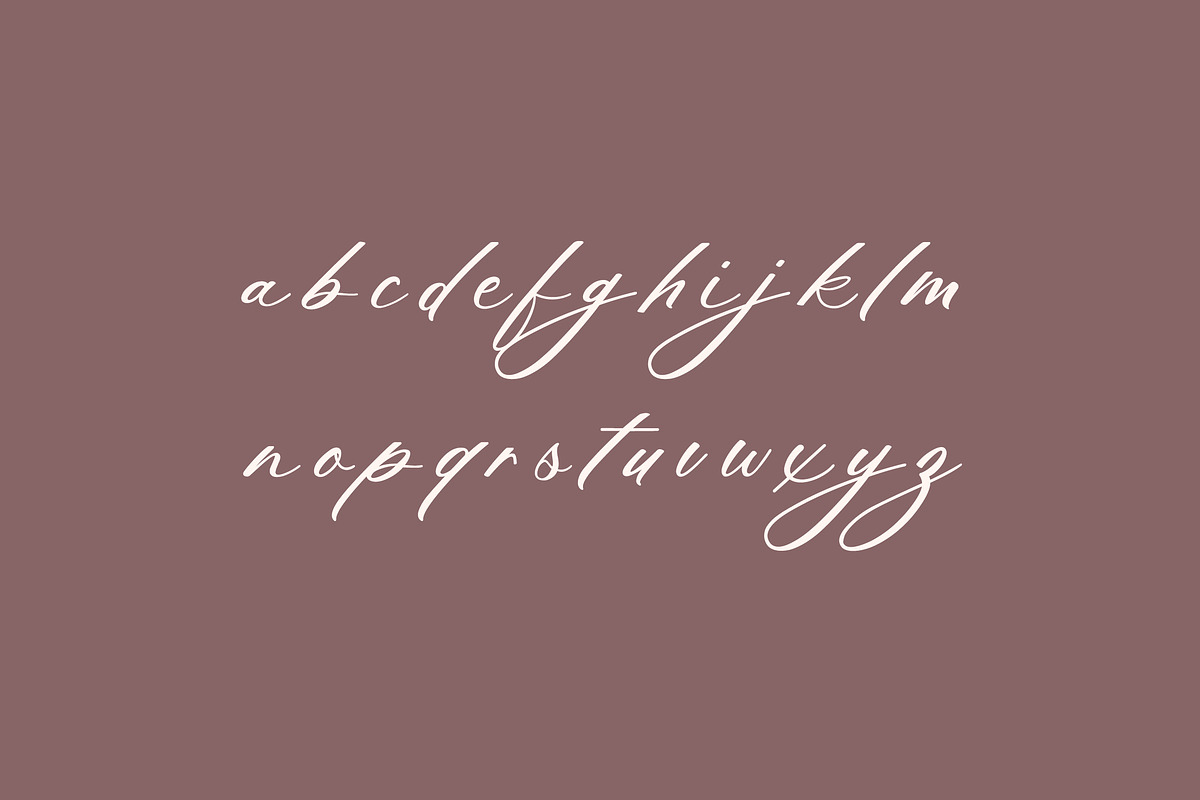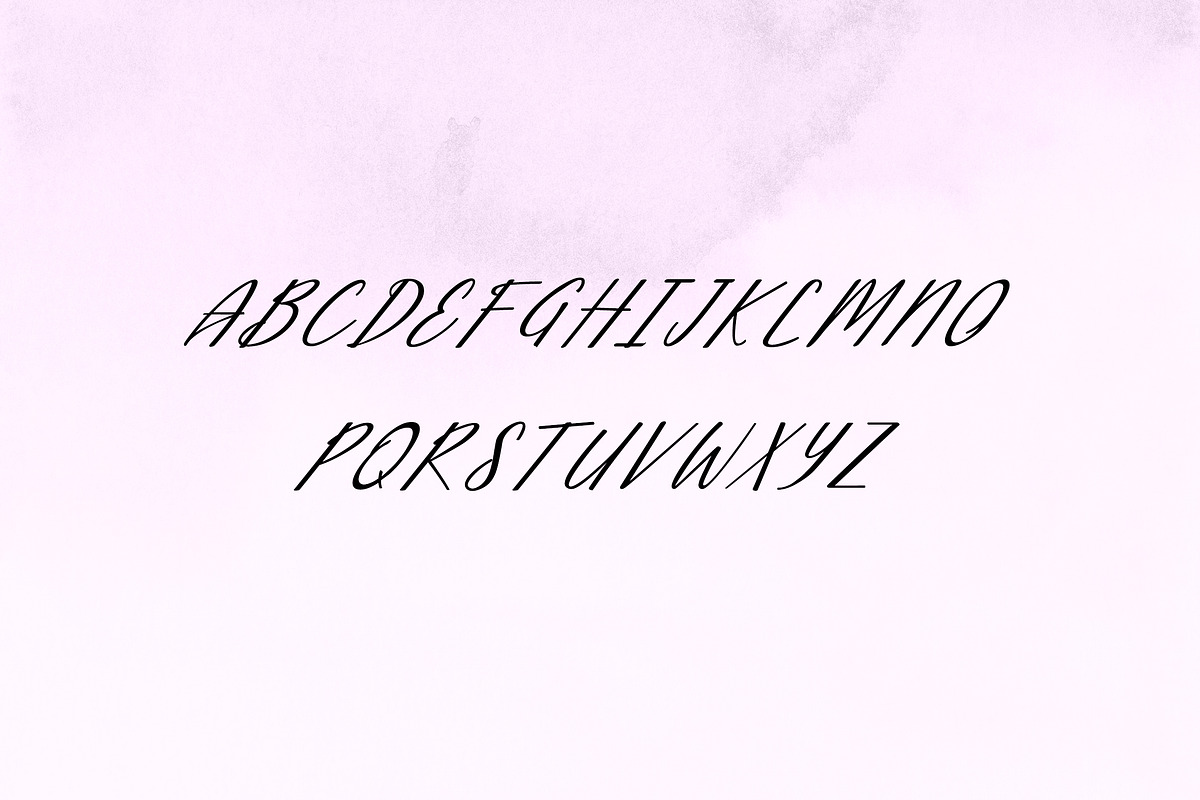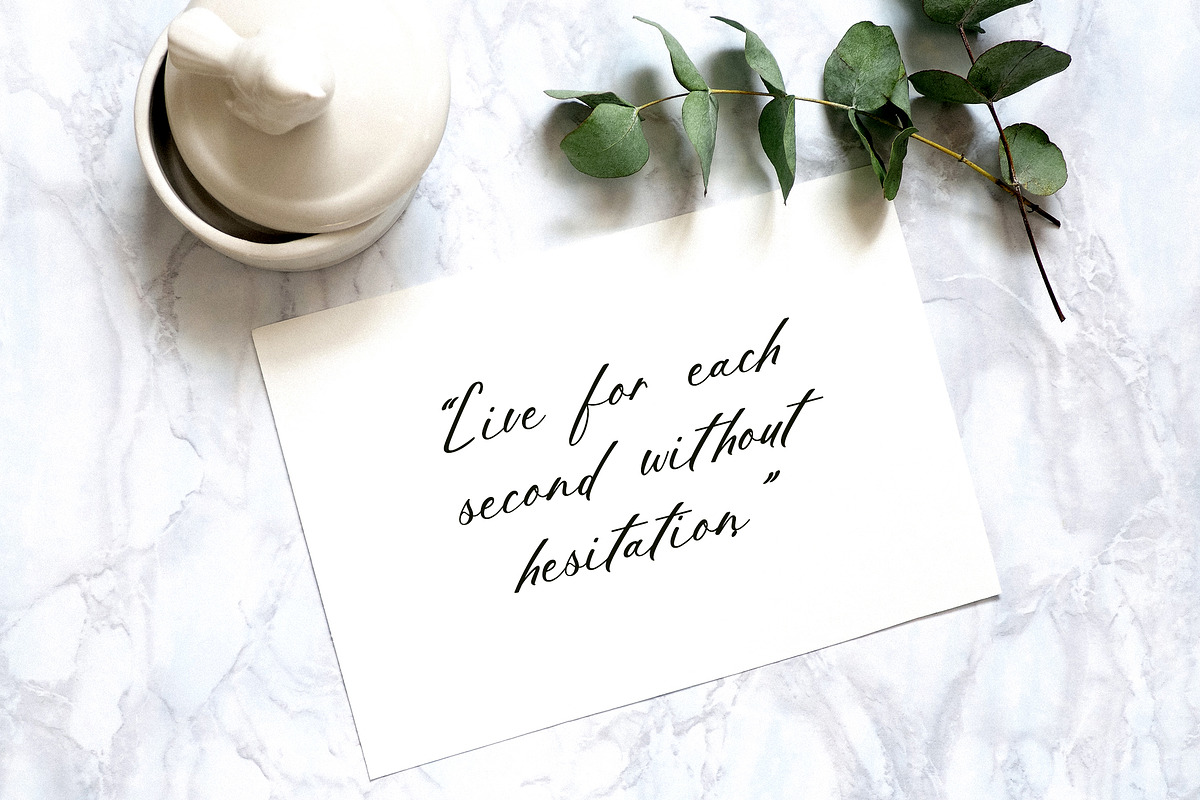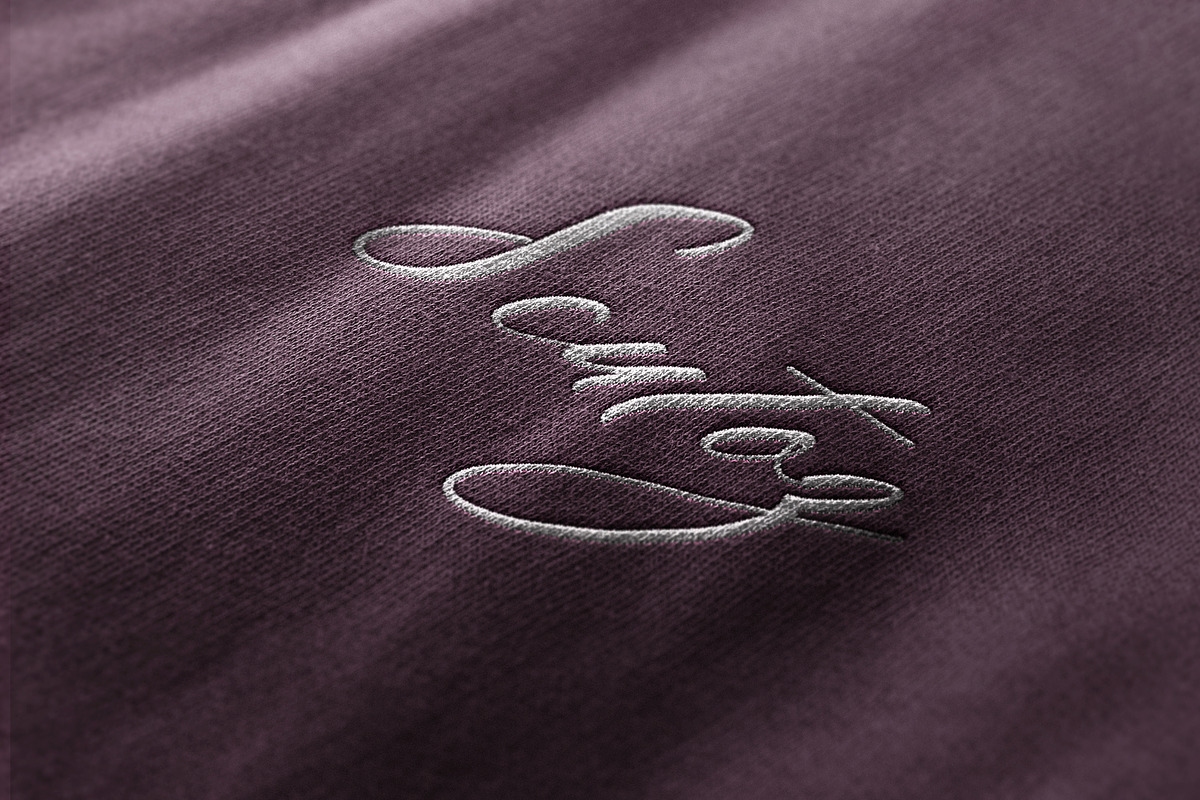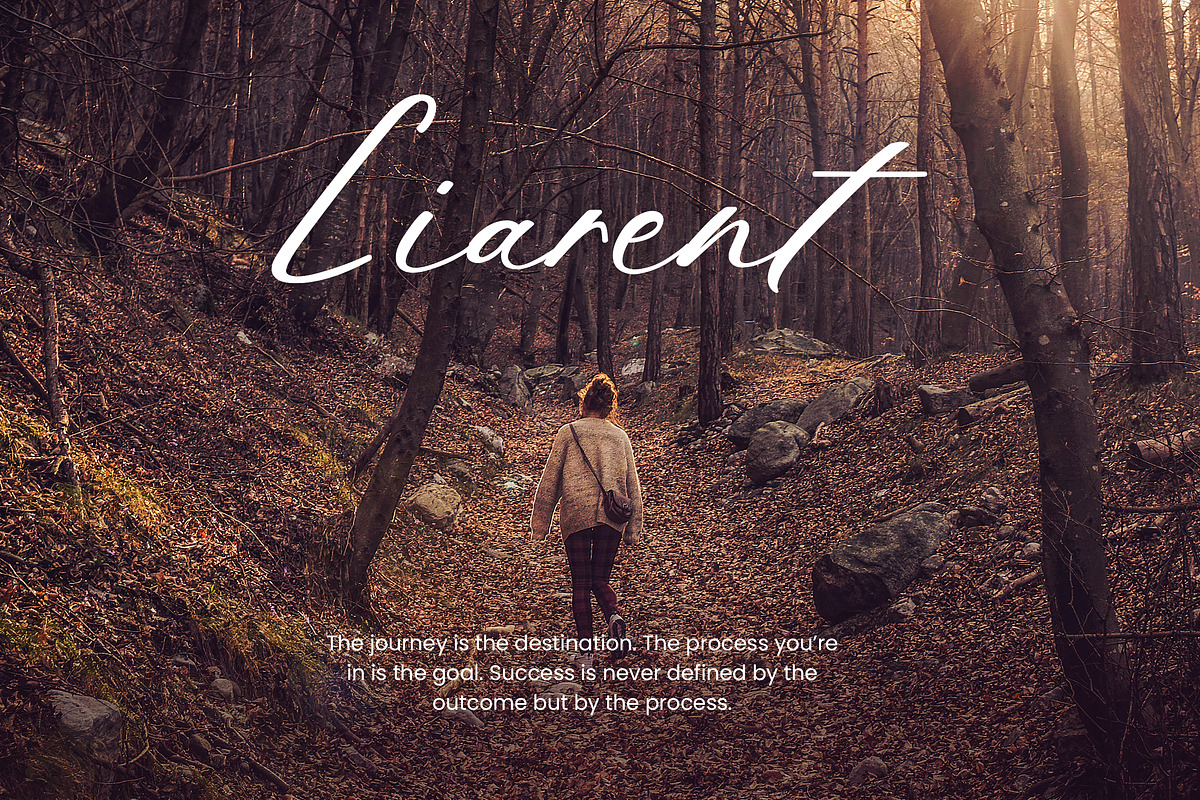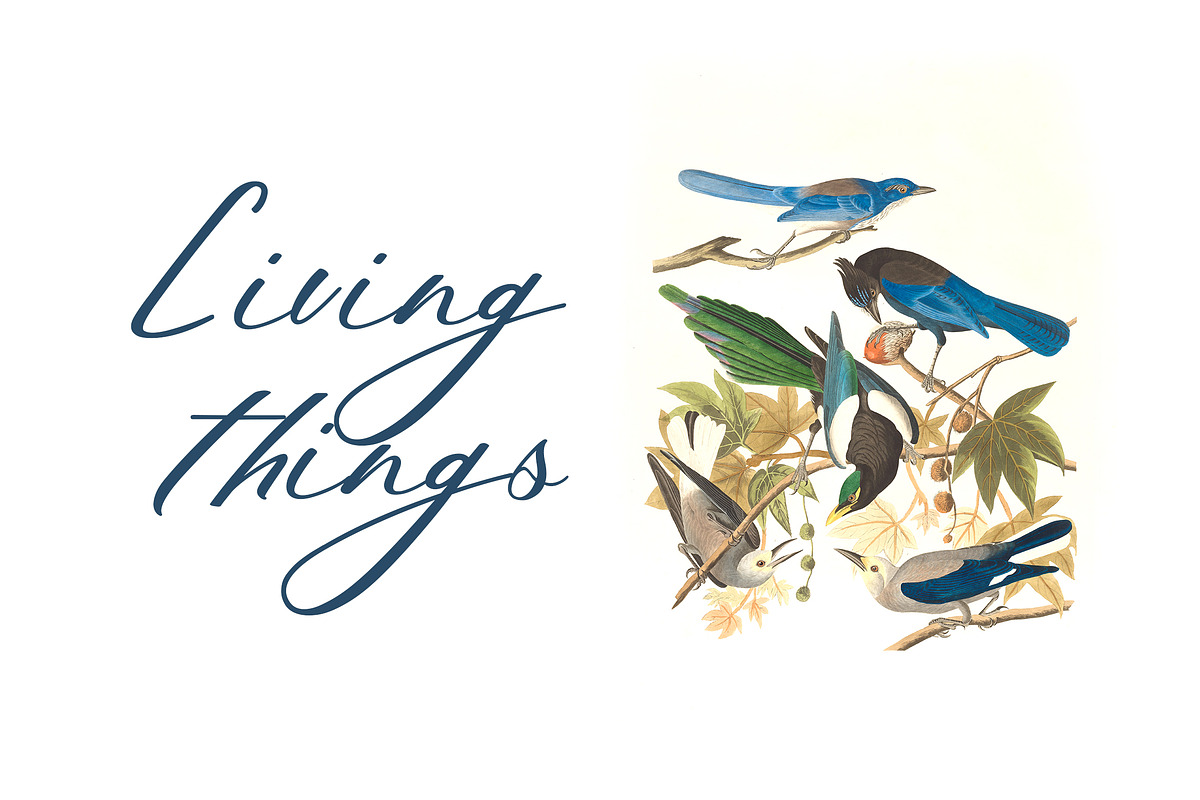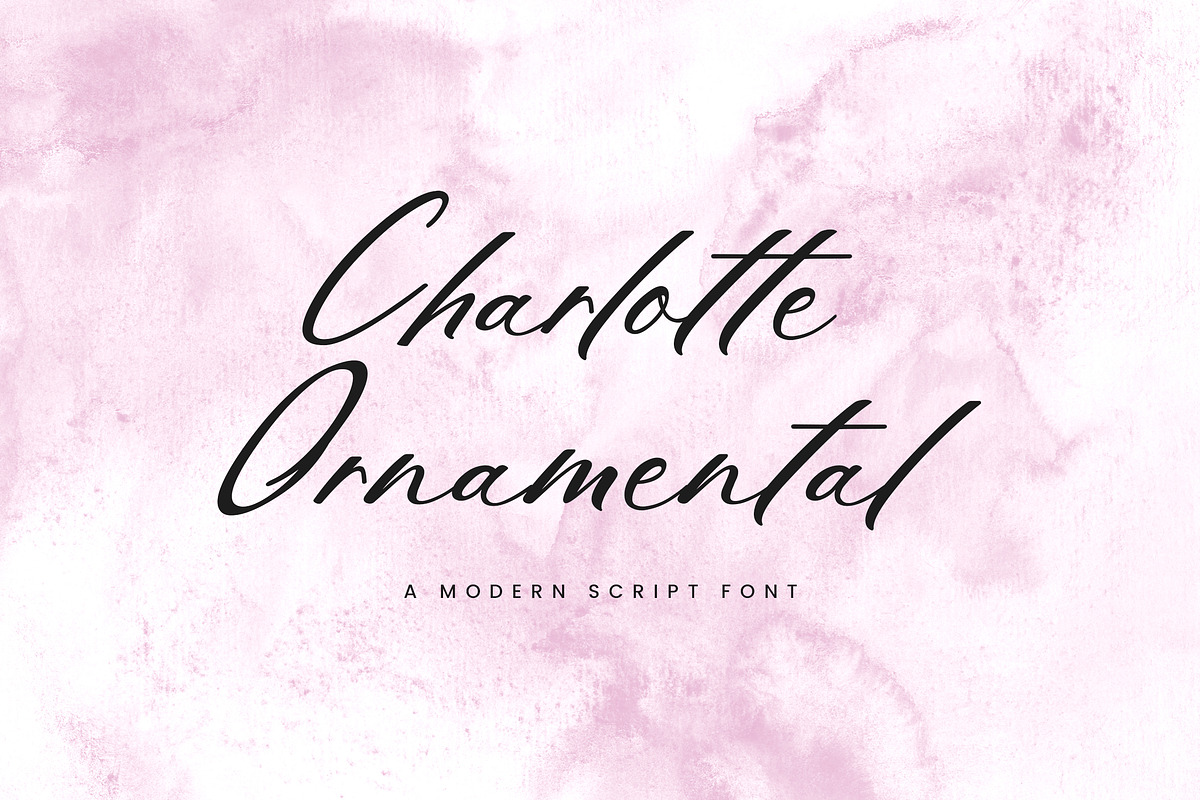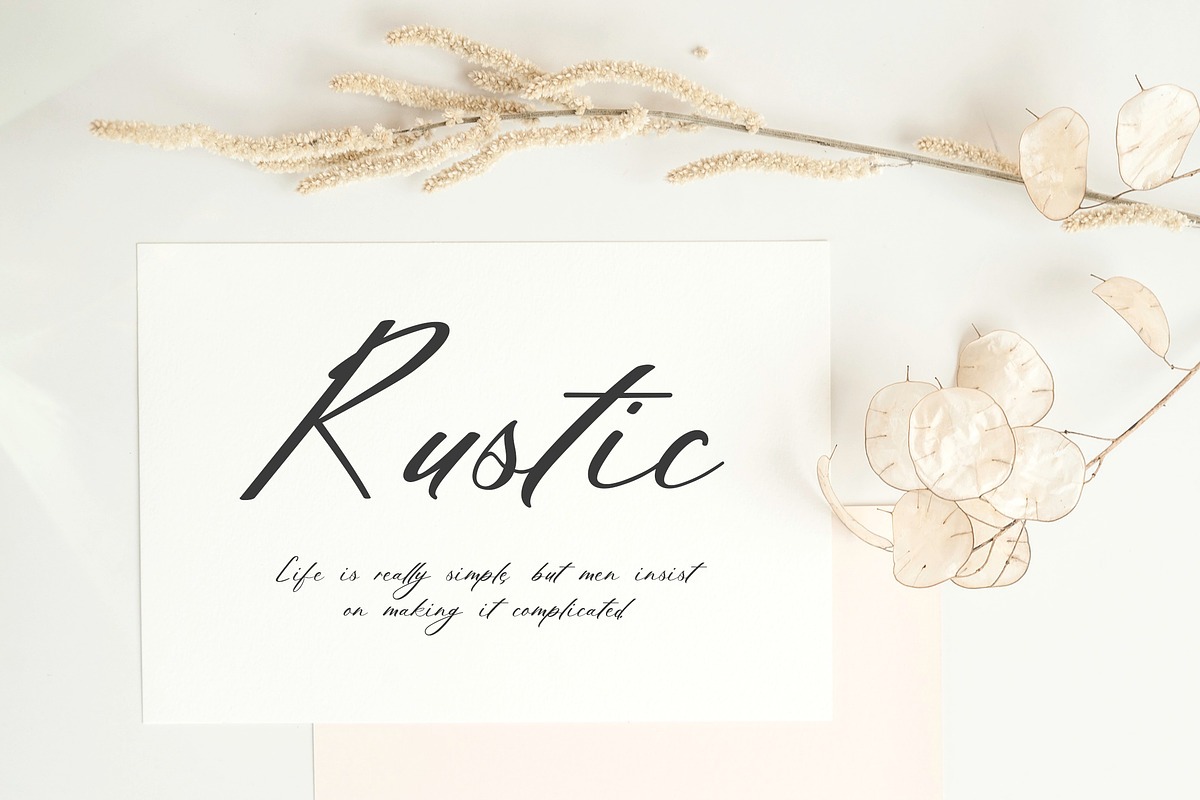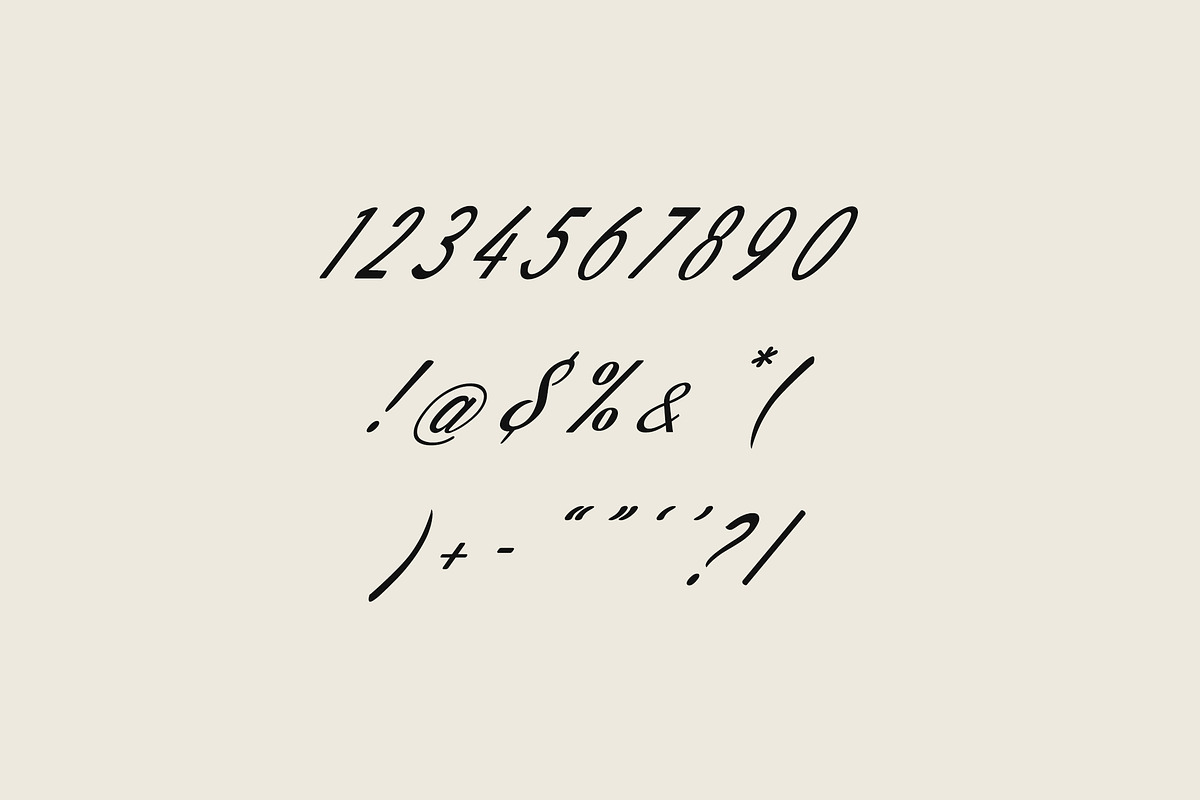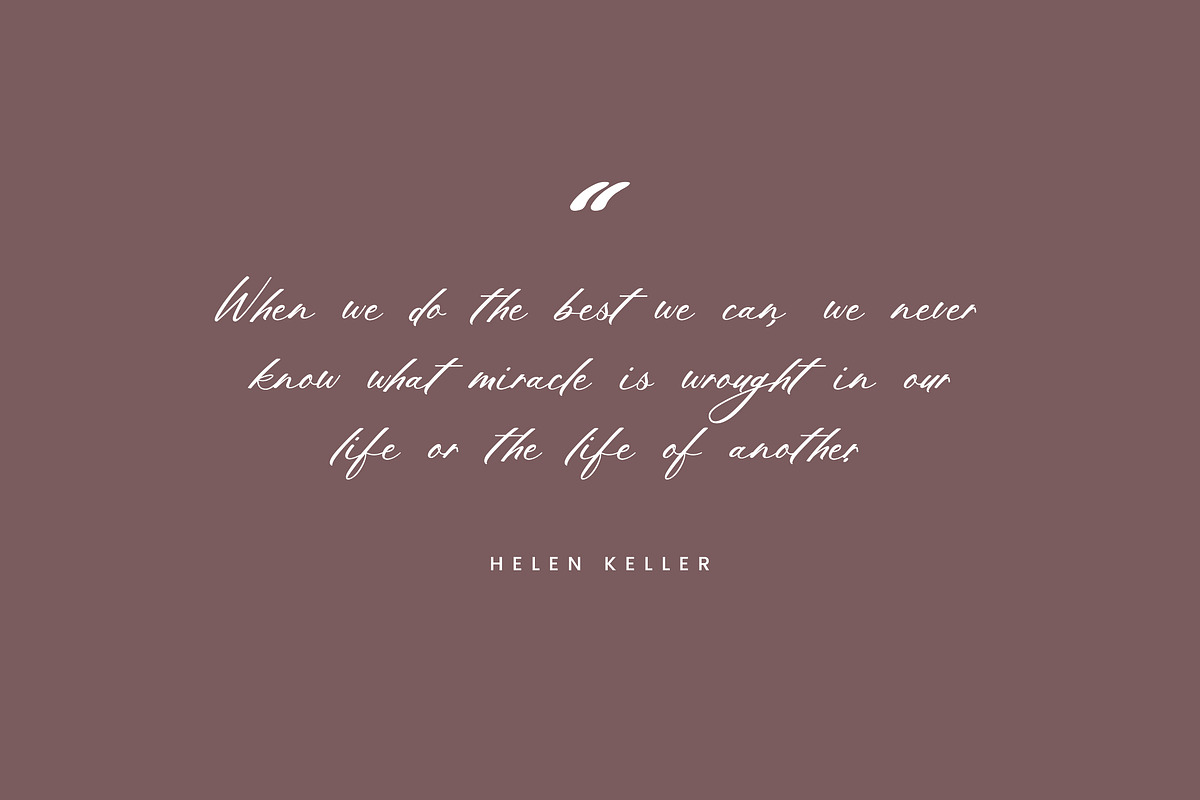
Charlotte Ornamental Calligraphy
Introducing our new product the name is Charlotte Ornamental Calligraphy Font. Modern Serif font that feels beautiful classy, elegant, and modern. This font is ideally suited for a wide variety of projects, such as signature, stationery, logo, wedding, typography quotes, magazine or book covers, website headers, clothing, branding, packaging design, and more. Also, fashion-related branding or editorial design displays both masculine and feminine qualities.